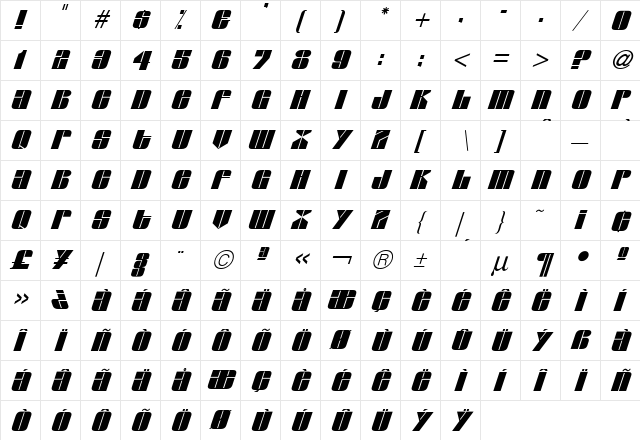
Glacier Italic
Design Context for Glacier Typeface
Glacier is a composed and adaptable typeface that performs quietly and consistently across a wide range of design contexts. The slanted form adds forward momentum and visual energy.
Pro Tip: Use Glacier for emphasis, pull quotes, and subheadings where its slanted energy can add rhythm to the layout.